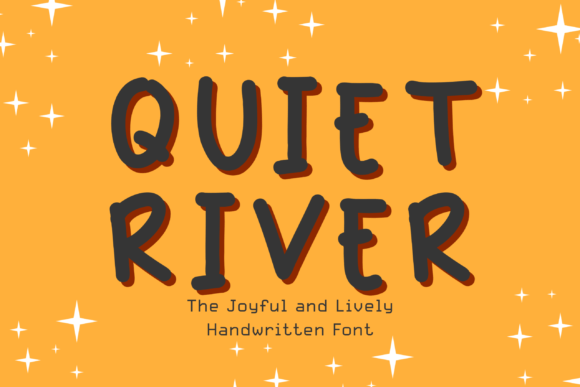
In a realm where creativity dances and imagination reigns supreme, there exists a font that captures the essence of childlike wonder and playful expression – "Quiet River." This captivating handwritten font, crafted with meticulous attention to detail by the talented GookkisStudio, is an ode to the boundless imagination of children. With its whimsical and lively strokes, "Quiet River" transports you to a world where every letter is a playful dance, a joyous celebration of life's simple pleasures.
Picture yourself creating schedules that come alive with color and charm, invitations that spark excitement and anticipation, and crafts that ignite imaginations. The delightful swirls and curves of "Quiet River" add a touch of magic to every word, transforming the ordinary into the extraordinary. It's a font that invites you to embrace your inner child, to let your creativity run wild and experience the sheer joy of self-expression.
Whether you're a seasoned designer seeking a fresh and captivating font or a novice crafter eager to add a personal touch to your projects, "Quiet River" is your perfect companion. Its versatility shines through in its ability to adapt to a myriad of projects, from heartwarming children's books to cheerful posters, and from vibrant social media posts to eye-catching website designs.
With "Quiet River" as your creative ally, you'll discover a world where words dance and stories come to life. Its playful charm will capture the hearts of your audience, leaving them enchanted and eager for more. So dive into the world of "Quiet River," where imagination knows no bounds, and let your creations bloom with joy, wonder, and endless possibilities.